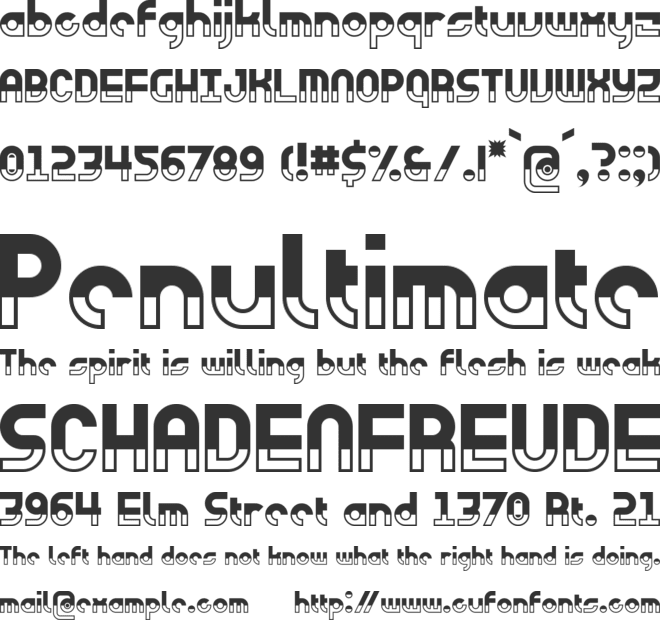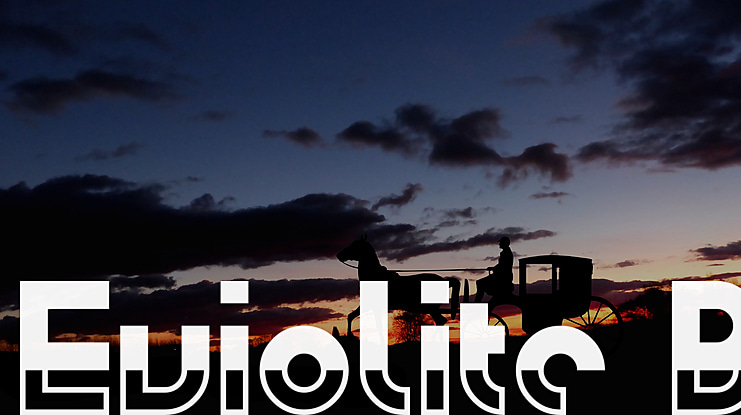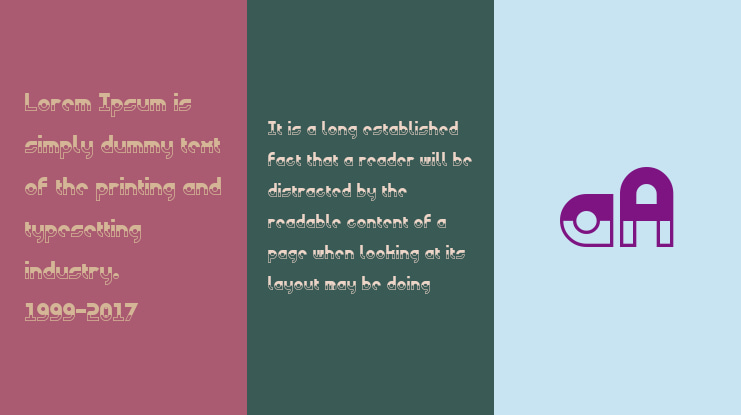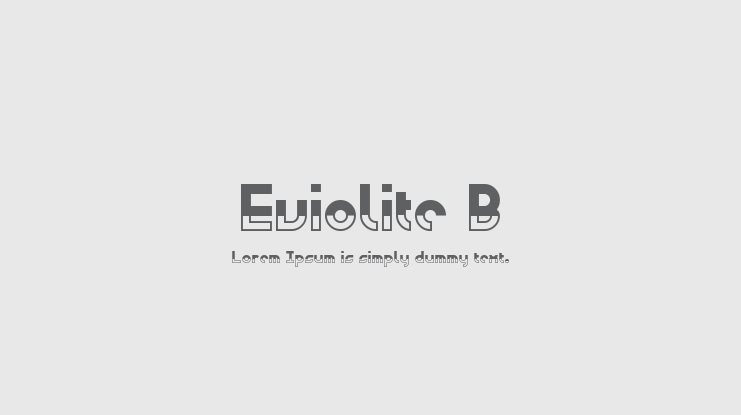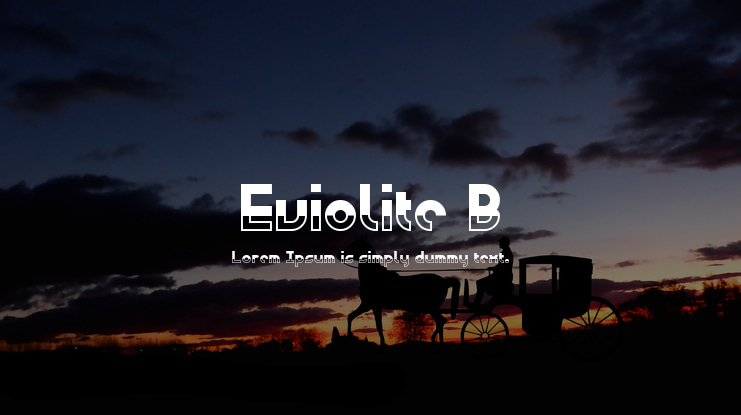
Eviolite B Font Family
By request, a font with the two-toned look of a Pokéball. Supports several languages! The Pokédollar sign can be found on "¢" and a Pokéball is on "•".
"Eviolite B" is a new stemless version. Don't see the difference? Check out the lowercase - letters like a,b,d,m,n, and so on.